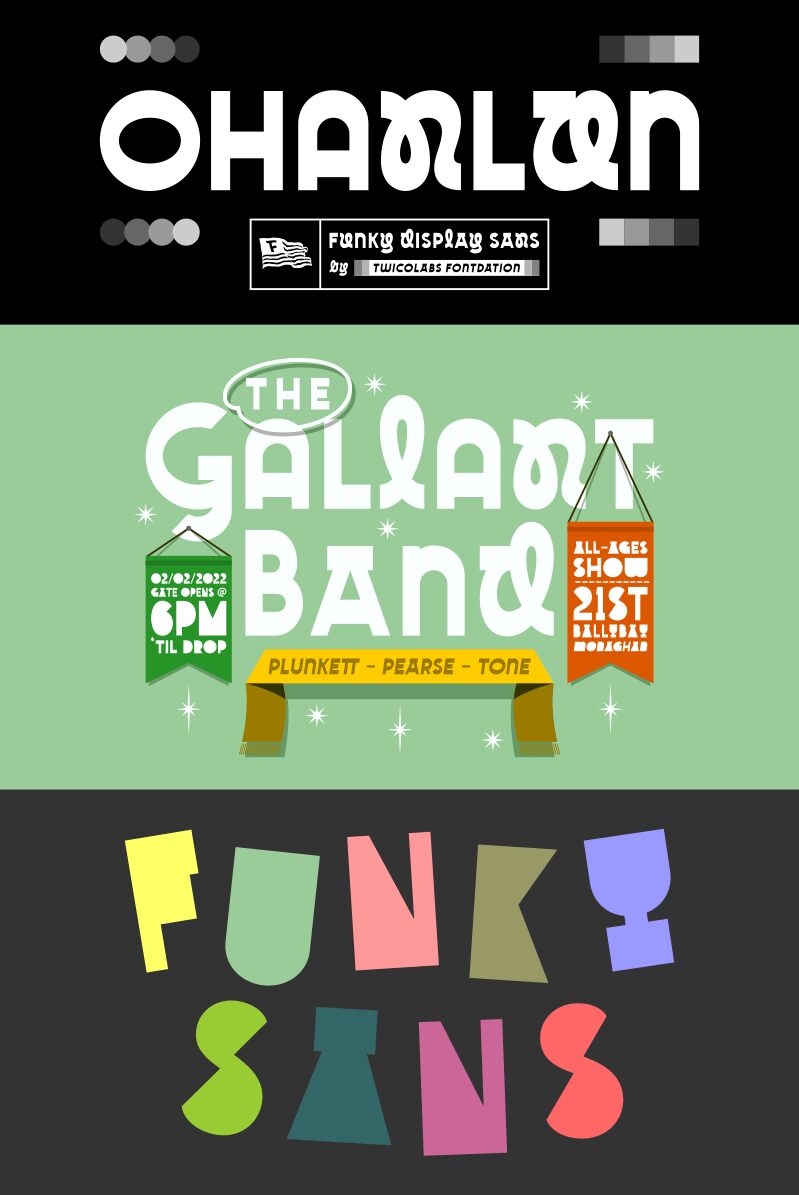
Ohanlon, a captivating display font crafted by Twicolabs Fontdation, exudes a bold and commanding presence. With its striking letterforms and unapologetic strokes, this typeface commands attention, evoking a sense of power and confidence. The clean, geometric shapes and seamless transitions between thick and thin lines create a visually stunning and impactful aesthetic, making Ohanlon an alluring choice for designers seeking to make a bold statement.
Ohanlon's versatility shines through, making it a versatile selection for a variety of design applications. Its assertive personality lends itself well to headings, posters, branding, and other display-focused projects, where it can captivate audiences and leave a lasting impression. Whether crafting eye-catching headlines, crafting robust brand identities, or elevating the visual impact of promotional materials, Ohanlon's distinctive style is sure to elevate any design.